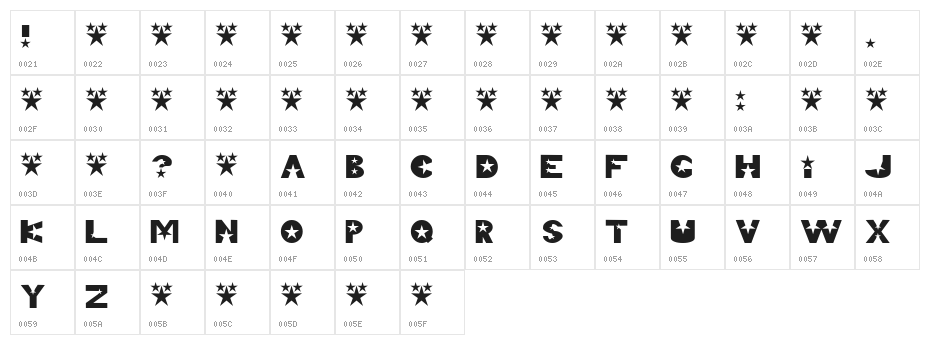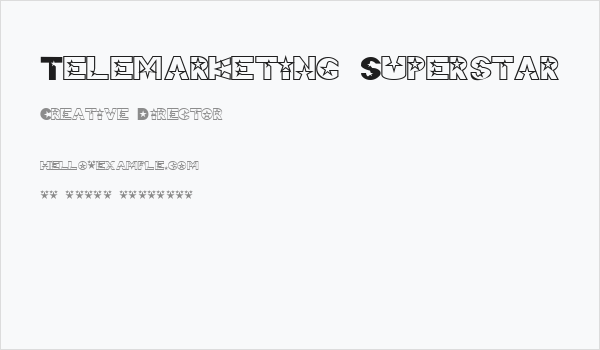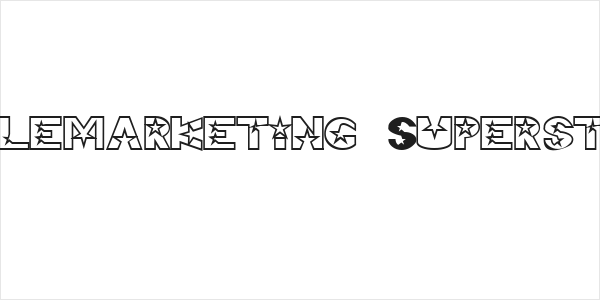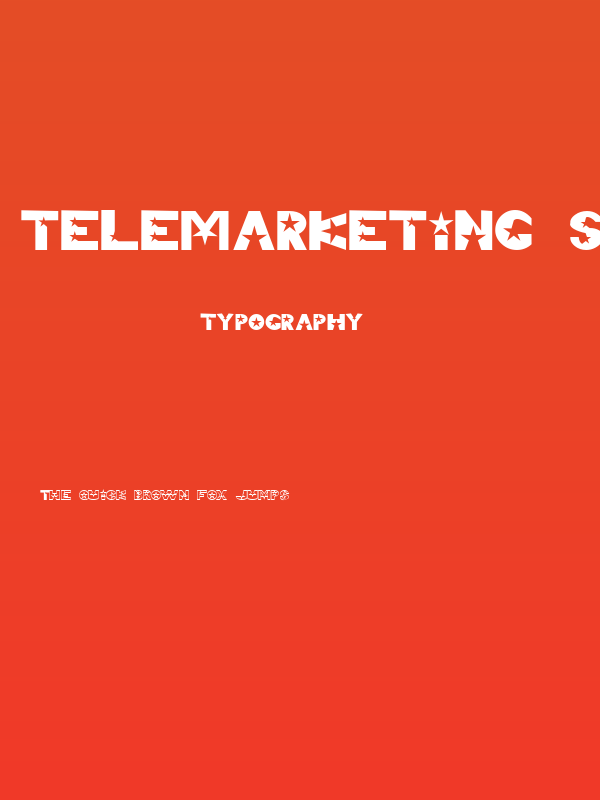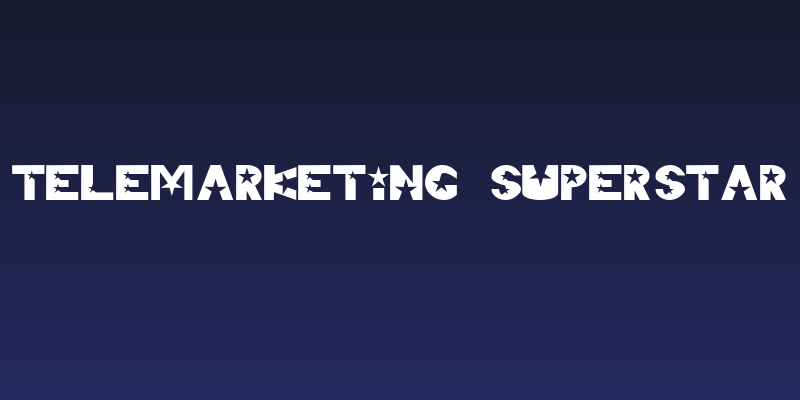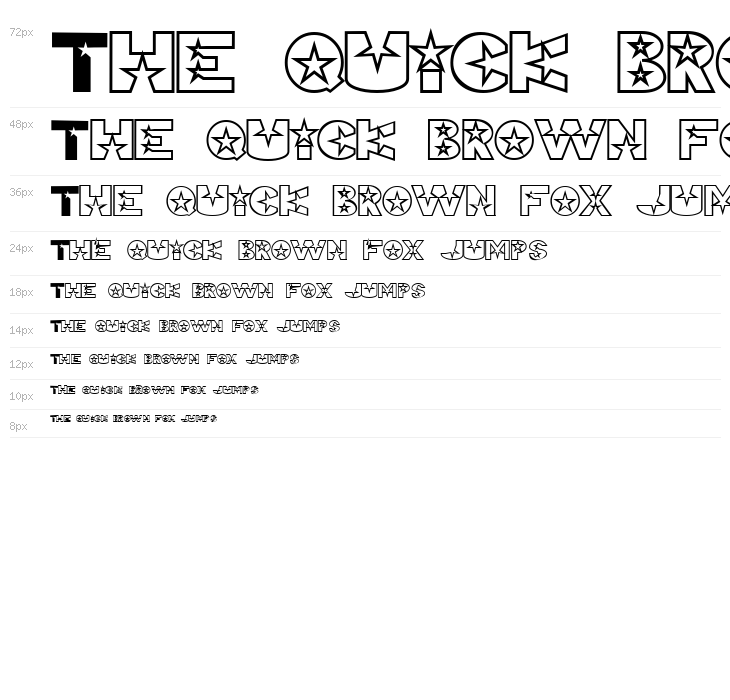
Telemarketing Superstar Font
Telemarketing Superstar Description
This font features a bold, decorative style with a unique star motif integrated into each letter. The uppercase letters are solid and filled, while the lowercase letters are outlined, creating a striking contrast. The design is playful and eye-catching, with stars replacing certain elements of the letters, adding a whimsical touch. The font is highly decorative, making it ideal for projects that require a standout, thematic appearance. The character set includes uppercase letters and a variety of star symbols, enhancing its decorative appeal. The font's boldness and unique design make it unsuitable for body text but perfect for headlines or thematic projects.
| Proposed Projects | Ideal for party invitations, event posters, children's book covers, or any project needing a playful, standout font. |